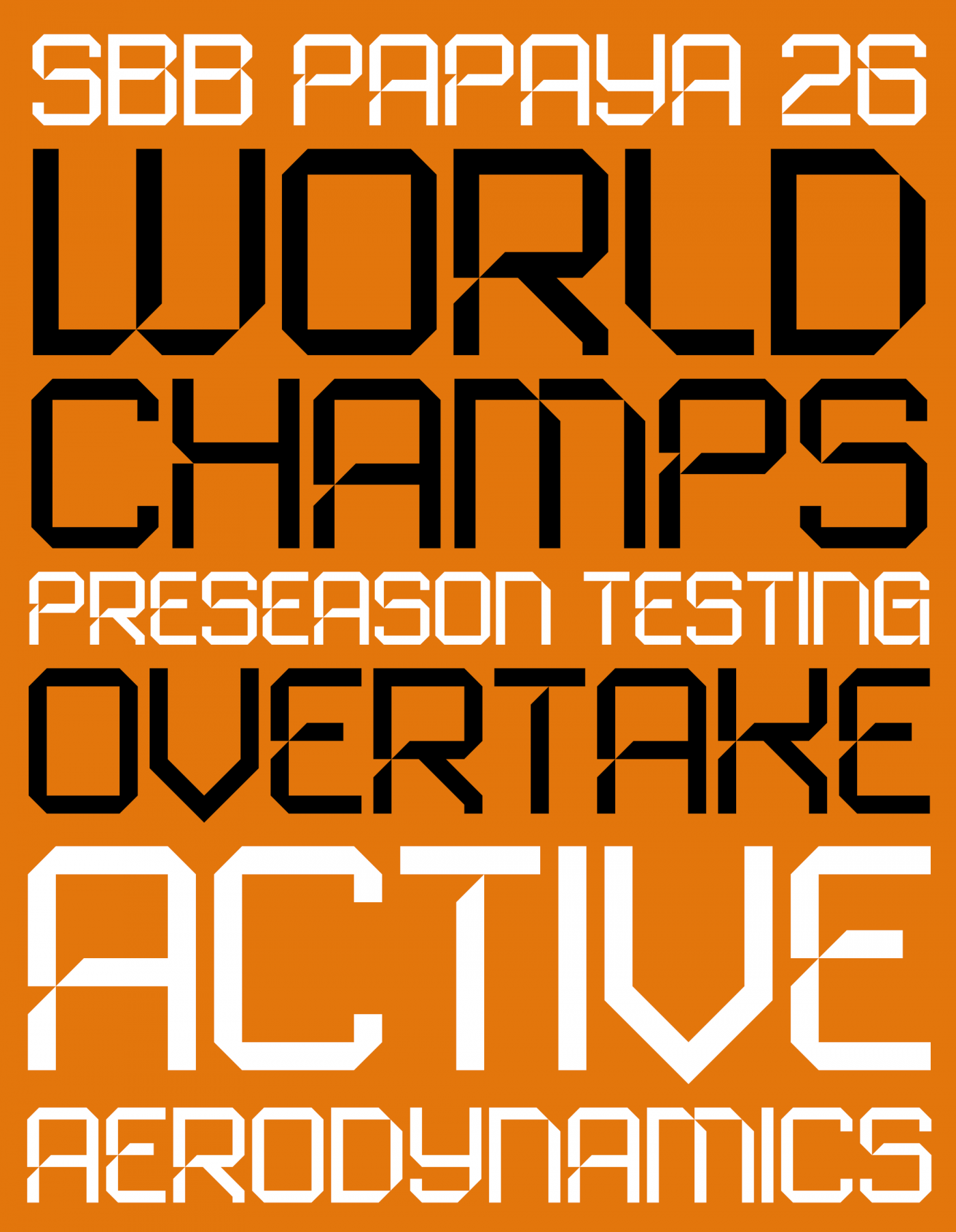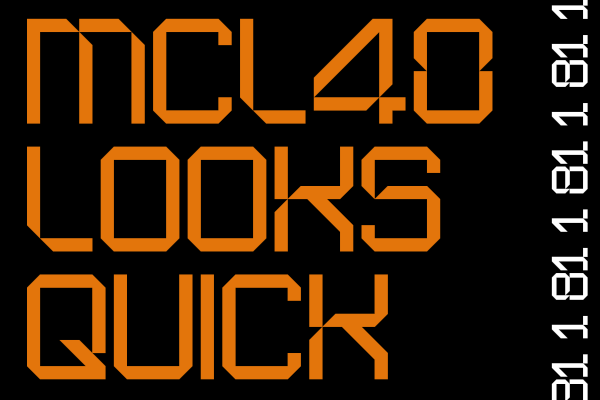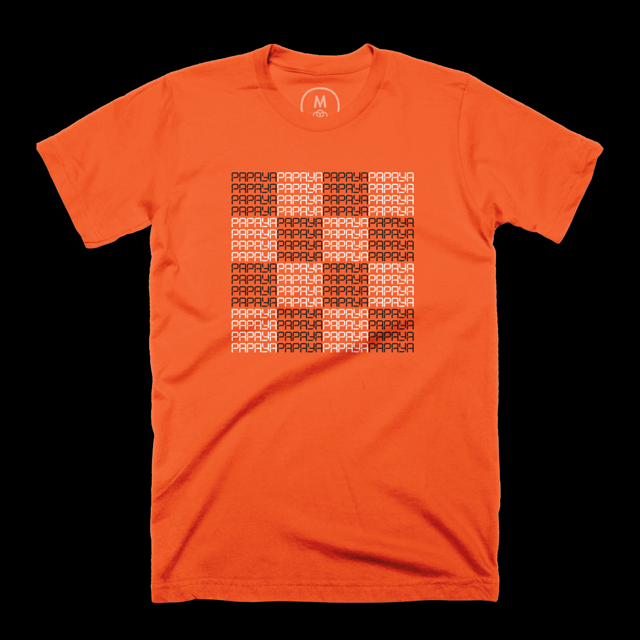
An update to SbB Papaya for the 2026 F1 season. I've seen some additional lettering that McLaren is using throughout the year on their social media and livery and updated the font to incorporate those designs.
Nice solutions here, but a bit of inconsistency in the design of some similar glyphs, IMHO (P/A, e.g.). The special cut in the horizontal strokes of A or R or B can be used in more ones like P and others. But you're the Boss.
In this case, I'm trying to replicate the lettering that McLaren is using on their F1 cars and in social media graphics. Agree completely that there are some inconsistencies... those are pulled straight from the source material. I do think it's really cool that one of the premiere Formula 1 teams is using a modular font in their communications and on their cars.
They've actually used two different 1s and I noticed a different G as well. I plan to do a couple of updates. The OTF file should work. I'm not where I can test it right now, but I'll see if I can figure out what's going on.
I switched the one out for what they are using, but left the old one hidden in the character set. I was going to change the G, but I just really don't like what it looks like... so I stuck with my G.
I updated the lower case G to match the one they use in the Miami 1000 GP. They actually use different characters at different times. (The original SbB Papaya that used some of the numerals from an old Arrow McLaren livery.)
@biostruct Thanks for the reference images. In this case, some of these are different than stuff they are using elsewhere. I'll take a look at incorporating some of these as alternate characters. The 1 is a good example. They have two, with and without the foot. Without the foot is what Lando is using this year... So I've clearly made some choices. But maybe I can put the alternate 1 in the ! spot.
I've tucked a few alternates into the lowercase. I think I caught everything on the links Biostruct shared. (And the alternate 1 is where the bullet should be -- option-8 on a Mac.)
@biostruct Thanks! This is interesting. Earlier in the season, they weren't using this font for the post race social graphics so I hadn't seen this DNF. (I had a D from something last season that was different.) I'm not sure this new D makes sense as a match to the rest of the letters in the font, but I went ahead and added the D and F to the lowercase slots. At some point, I'm just going to have to build an OpenType font with all these alternate characters. If you see anything else, feel free to keep sharing.
Another example. This year's version of the font is more useable and is a closer match for what they use on the car.
Nice solutions here, but a bit of inconsistency in the design of some similar glyphs, IMHO (P/A, e.g.). The special cut in the horizontal strokes of A or R or B can be used in more ones like P and others. But you're the Boss.
In this case, I'm trying to replicate the lettering that McLaren is using on their F1 cars and in social media graphics. Agree completely that there are some inconsistencies... those are pulled straight from the source material. I do think it's really cool that one of the premiere Formula 1 teams is using a modular font in their communications and on their cars.
The 1 is different this year. I noticed. It's not updated here.
They've actually used two different 1s and I noticed a different G as well. I plan to do a couple of updates. The OTF file should work. I'm not where I can test it right now, but I'll see if I can figure out what's going on.
I switched the one out for what they are using, but left the old one hidden in the character set. I was going to change the G, but I just really don't like what it looks like... so I stuck with my G.
Take a look at the details of the Arrow McLaren test liveries. They feature a number of different letters.
The letter G features the Miami 1000 GP logo.
Also keep an eye on what the Endurance team gets up to.
I updated the lower case G to match the one they use in the Miami 1000 GP. They actually use different characters at different times. (The original SbB Papaya that used some of the numerals from an old Arrow McLaren livery.)
i like the usage of sharp angles in this font, they're very cool ^^
@biostruct Thanks for the reference images. In this case, some of these are different than stuff they are using elsewhere. I'll take a look at incorporating some of these as alternate characters. The 1 is a good example. They have two, with and without the foot. Without the foot is what Lando is using this year... So I've clearly made some choices. But maybe I can put the alternate 1 in the ! spot.
I made a papaya checkered flag shirt after Lando's win using my SbB Papaya 26 font. It's on Cotton Bureau.